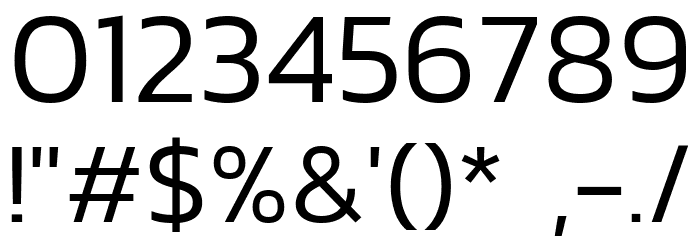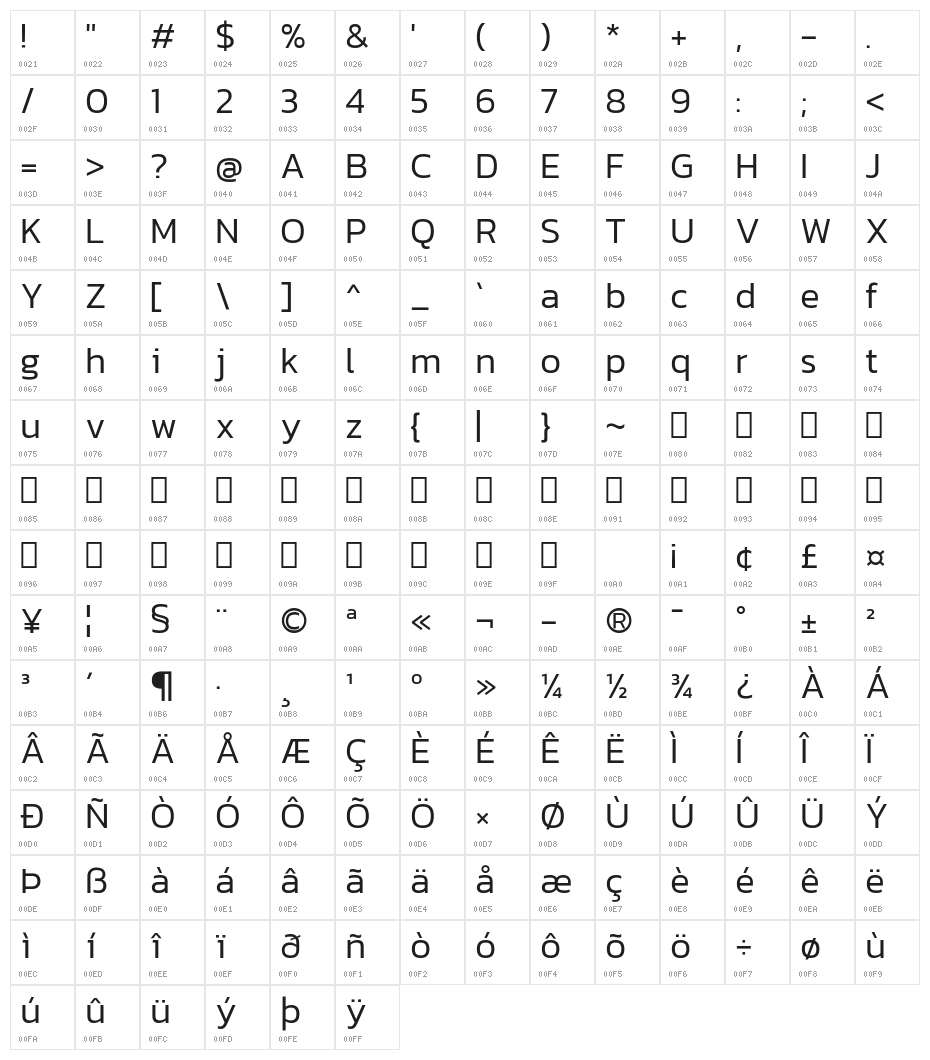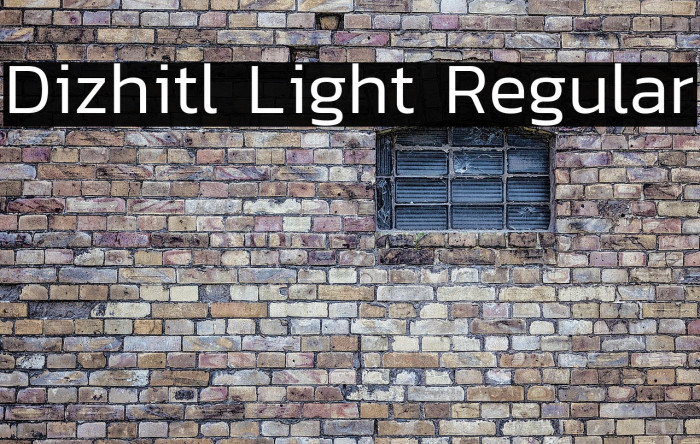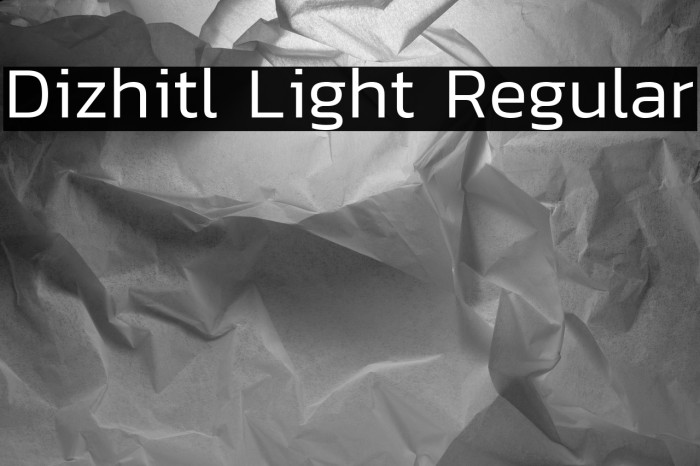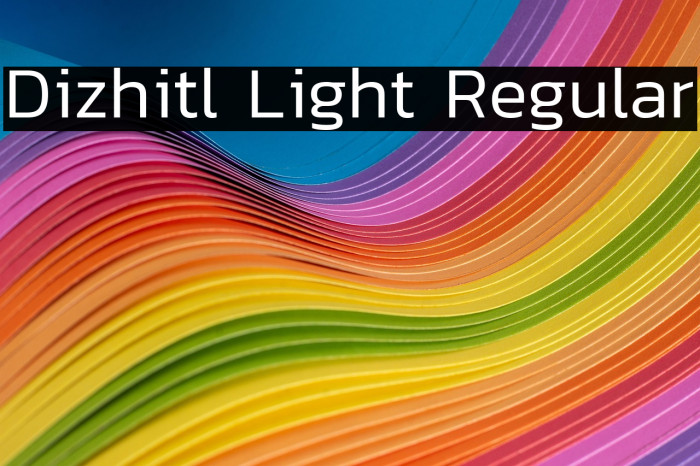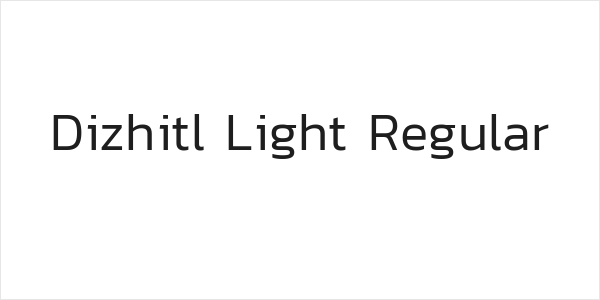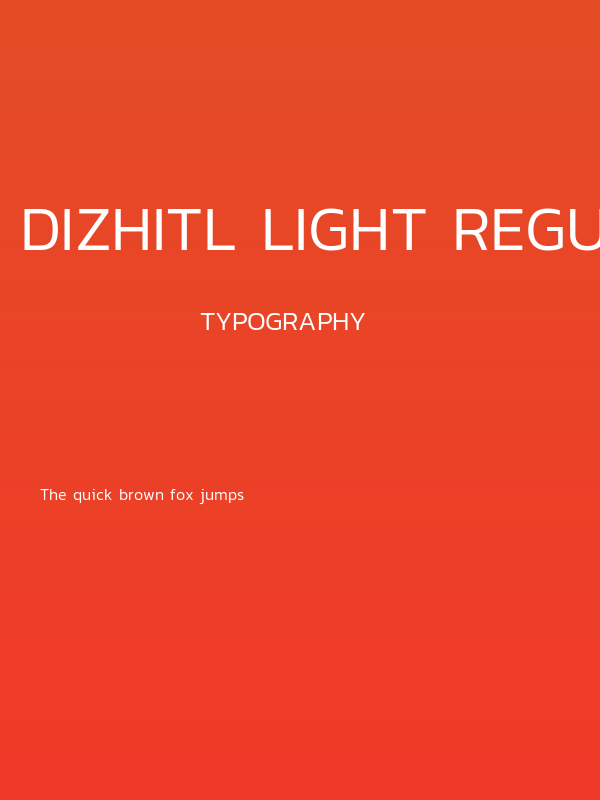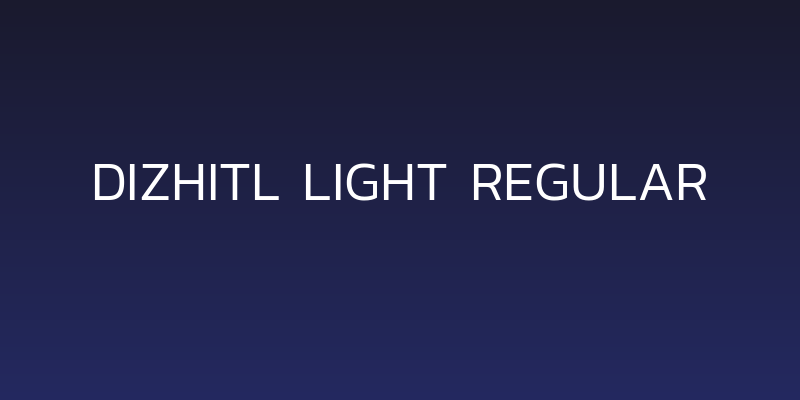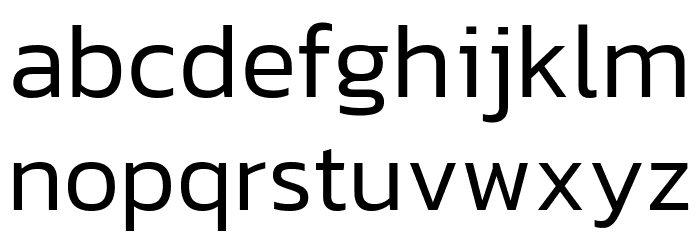
Dizhitl Light Regular Font
Dizhitl Light Regular Description
This font features a clean and modern sans-serif design, characterized by its simplicity and clarity. The characters are evenly spaced with a consistent stroke width, providing a balanced and harmonious appearance. The uppercase letters are bold and assertive, while the lowercase letters maintain a friendly and approachable feel. The numerals are clear and easily distinguishable, making them suitable for various applications. Special characters are designed with precision, ensuring readability and functionality. Overall, this font exudes a contemporary aesthetic, making it versatile for both digital and print media.